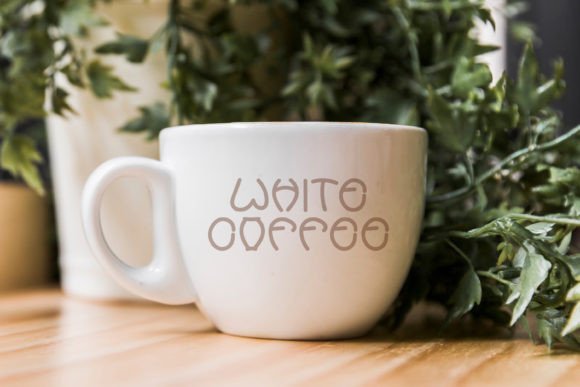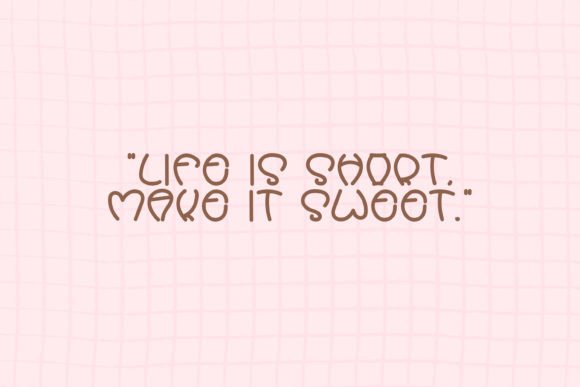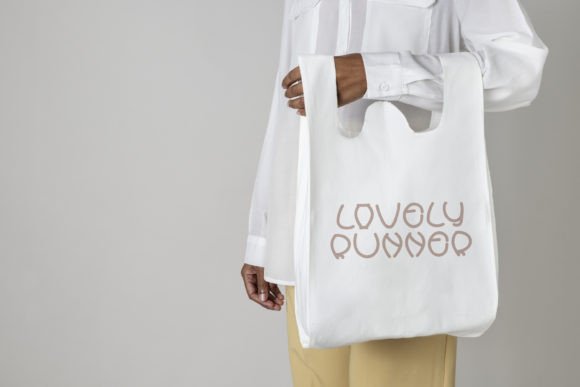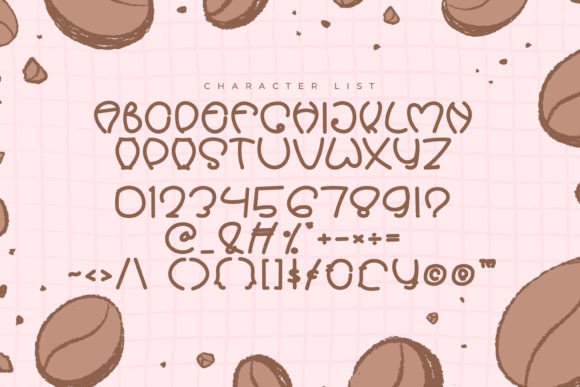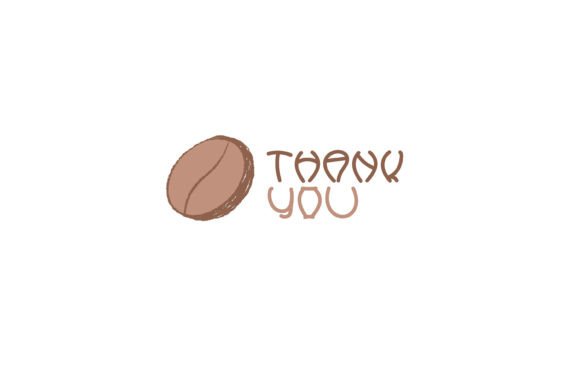
Introducing Black Coffee Font: The Perfect Choice for Fun and Creative Projects
Are you a designer, crafter, or DIY enthusiast looking for a font that embodies trendiness and authenticity? Look no further than Black Coffee Font! This playful and cute display font is perfect for any children activity or school project that requires a fun and youthful touch.
What is Black Coffee Font?
Black Coffee Font is a unique and creative typeface that is designed to add a touch of playfulness to any project. Its bold and chunky letters make it perfect for headlines, titles, and other display text. The font is highly legible, even at small sizes, making it versatile for use in a variety of applications.
Key Features of Black Coffee Font
- Playful and Cute Design: Black Coffee Font features a fun and youthful design that is perfect for children’s activities, school projects, and other creative endeavors.
- Trendiness and Authenticity: The font’s unique and modern design makes it a great choice for designers and crafters who want to add a touch of trendiness to their work.
- High Legibility: The font is highly legible, even at small sizes, making it perfect for use in a variety of applications.
- Versatility: Black Coffee Font can be used for a wide range of projects, from children’s books and activity sheets to posters, flyers, and other marketing materials.
Uses for Black Coffee Font
Black Coffee Font is a versatile typeface that can be used for a wide range of projects, including:
- Children’s Books and Activity Sheets: The font’s playful design makes it perfect for use in children’s books, activity sheets, and other educational materials.
- School Projects: Black Coffee Font is a great choice for school projects, such as posters, presentations, and reports.
- Posters and Flyers: The font’s bold and chunky design makes it perfect for use in posters, flyers, and other marketing materials.
- Crafting and DIY Projects: Black Coffee Font can be used for a wide range of crafting and DIY projects, such as making signs, banners, and other decorative items.
Why Choose Black Coffee Font?
There are many reasons why Black Coffee Font is a great choice for designers, crafters, and DIY enthusiasts. Here are just a few:
- Unique and Creative Design: Black Coffee Font features a unique and creative design that is sure to stand out from the crowd.
- Easy to Read: The font is highly legible, even at small sizes, making it perfect for use in a variety of applications.
- Versatility: Black Coffee Font can be used for a wide range of projects, from children’s books and activity sheets to posters, flyers, and other marketing materials.
Black Coffee Font is a playful and cute display font that is perfect for any children activity or school project. Its unique and creative design makes it a great choice for designers, crafters, and DIY enthusiasts who want to add a touch of trendiness and authenticity to their work. With its high legibility, versatility, and free availability, Black Coffee Font is a great choice for anyone looking for a fun and creative font.